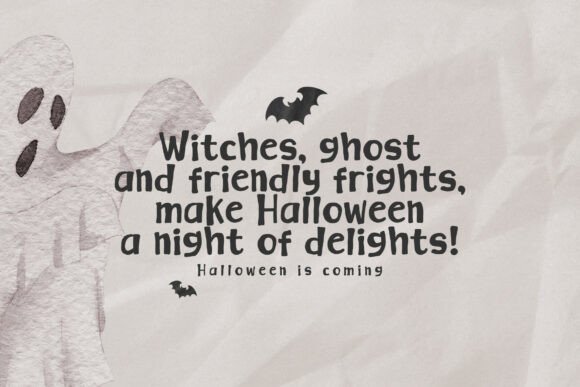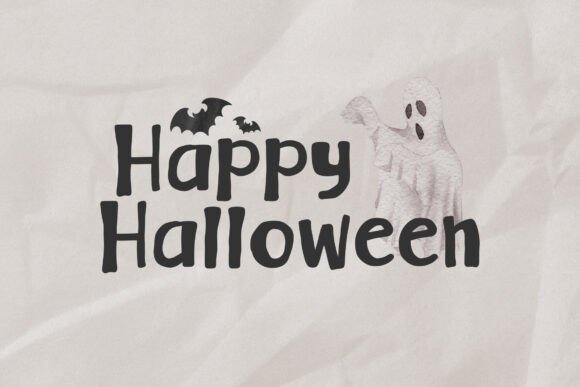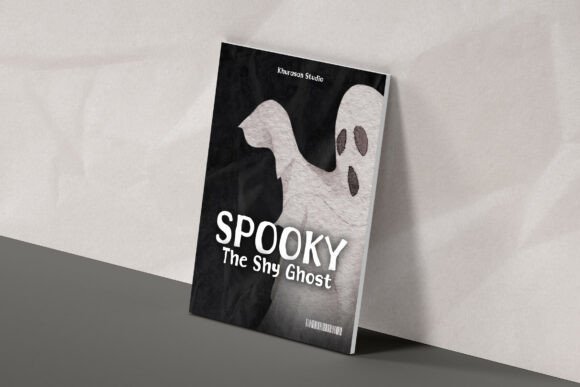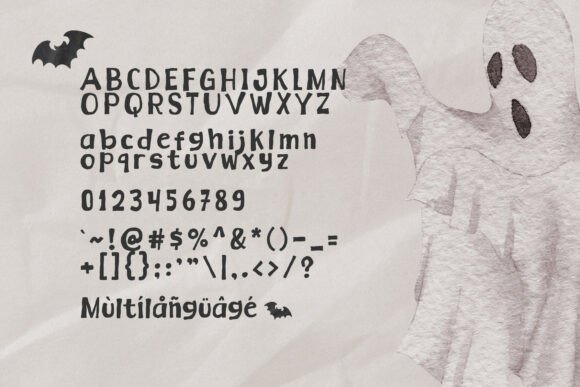
Unleash Your Dark Creativity This Halloween
Have you ever stared at a blank canvas, trying to conjure up the perfect spooky design, but nothing seems to capture the essence of the eerie season? You’re not alone. Many designers face this creative block, but what if you had the perfect tool to bring your dark visions to life?
Introducing the Batter Spooky Font, a modern horror-themed display font designed to infuse your designs with a mysterious vibe and a dash of style. This font is a game-changer for designers who want to create unforgettable Halloween designs that are both terrifying and trendy. With the Batter Spooky Font, you’ll have the freedom to unleash your creativity without limits.
Whether you’re a seasoned designer or a beginner, the Batter Spooky Font is a valuable addition to your design arsenal. Its unique blend of scary and stylish elements will help you stand out from the crowd and create designs that will leave a lasting impression.
Batter Spooky Font Key Features
- Unique Characteristics: The Batter Spooky Font features a unique, spooky aesthetic with intricate details and textures, making it ideal for Halloween-themed designs, horror movies, and other spooky projects.
Batter Spooky Font Review
I recently had the chance to work with the Batter Spooky Font, and I must say, it’s a unique addition to any spooky-themed project. ✨ The font’s bold, playful characters are sure to capture the imagination of your audience. The designer has done an excellent job of creating a cohesive look that’s perfect for Halloween-themed materials, party invitations, or even horror movie posters.
- Unique and playful characters that add a touch of whimsy to any project
- Highly customizable with various font styles and sizes available
- Perfect for creating a cohesive look for spooky-themed projects
- May not be suitable for formal or professional projects
- Limited compatibility with older software or systems
- Some characters may not display correctly in certain fonts or font sizes
Overall, the Batter Spooky Font is a great choice for designers looking to add a touch of spooky flair to their projects. While it may have some limitations, the benefits far outweigh the drawbacks. I would highly recommend this font to anyone working on a spooky-themed project.
Halloween party invitations and decorations.
Spooky-themed social media posts and graphics.
Horror movie title sequences and posters.